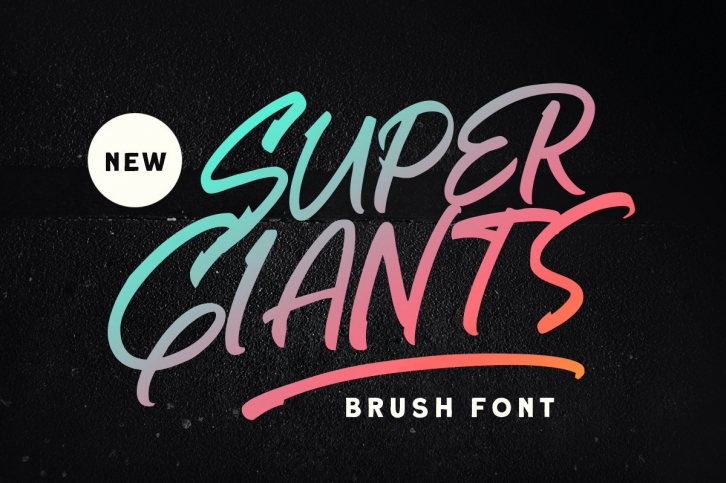
Super Giants is a gorgeous font that was realeased on December 2, 2020. The font can be used in many style contexts and design environments. Perfect for invitations, magazines, websites, logos, and more! It was designed by Letterhend and the file size is 6.44 MB. Thanks for checking out this font!